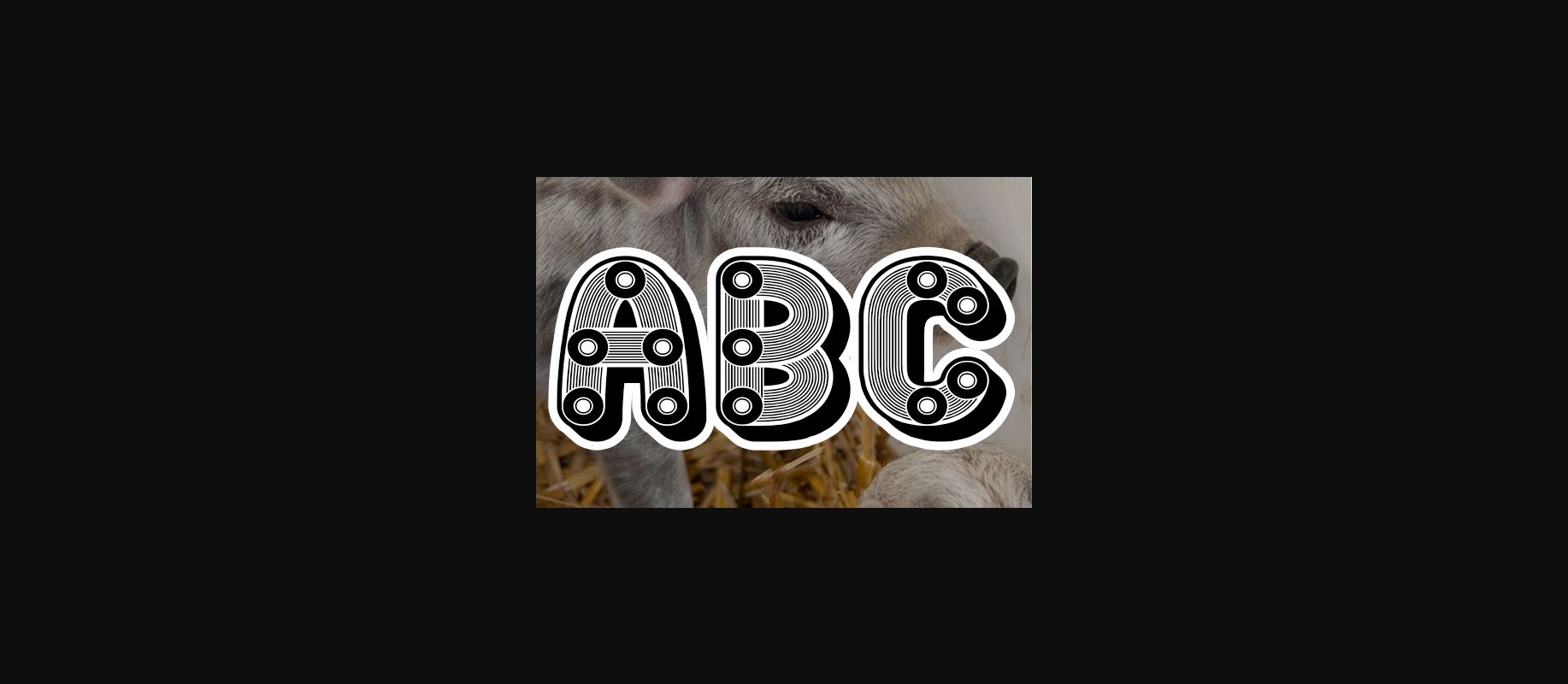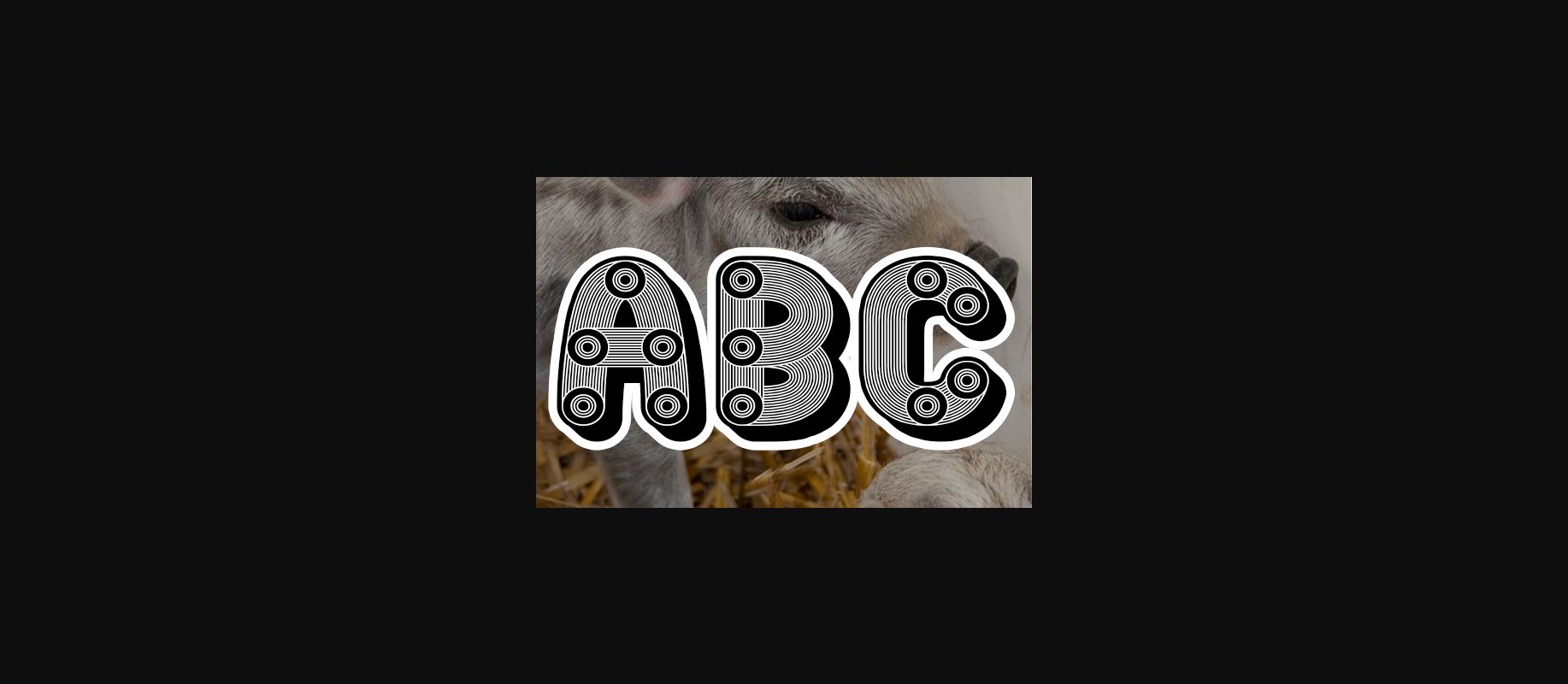
About Mangalica Font
Mangalica is a fun decorative font with a retro look. It will look outstanding in any context, whether it’s being used on busy backgrounds or as a standalone headline!